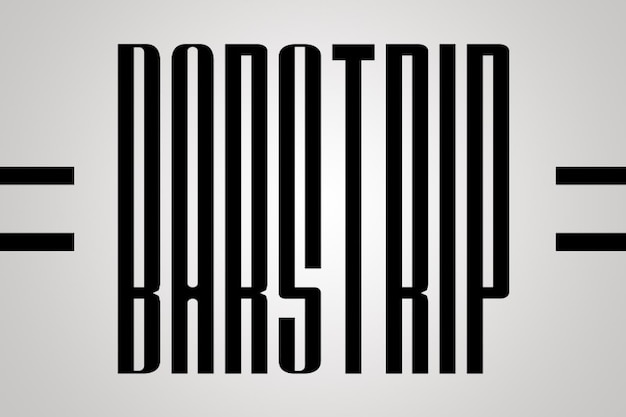
Barstrip Font
Barstrip is a modern font characterized by its tall, elongated letters that create a sleek and contemporary look. Its striking verticality adds a sense of sophistication and elegance, making it ideal for headlines, branding, and minimalist designs. With clean lines and a refined aesthetic, Barstrip enhances any project, bringing a fresh, stylish edge that captures attention and elevates visual communication.